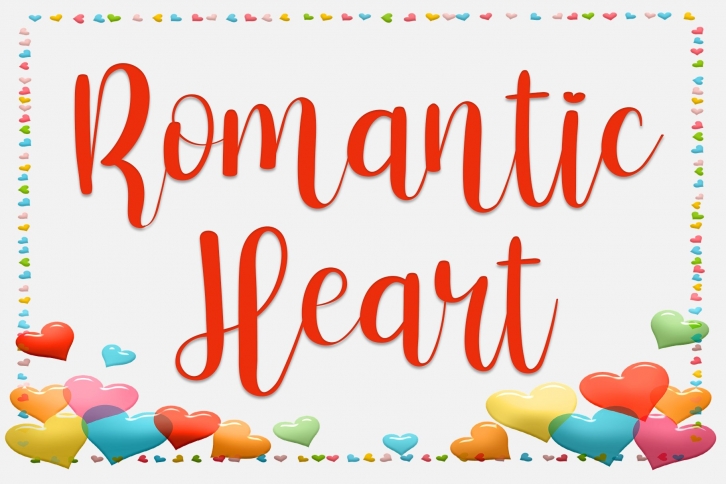
Romantic Heart is a beautiful font that was designed by Giart Studios. It's a great choice for designers and creatives who need such a font. It was released on March 8, 2022 and the file size is 14.67 MB. Romantic Heart may give a more youthful, expressive and casual look to your project. It is a very beautiful, refined, elegant, and high-quality font.